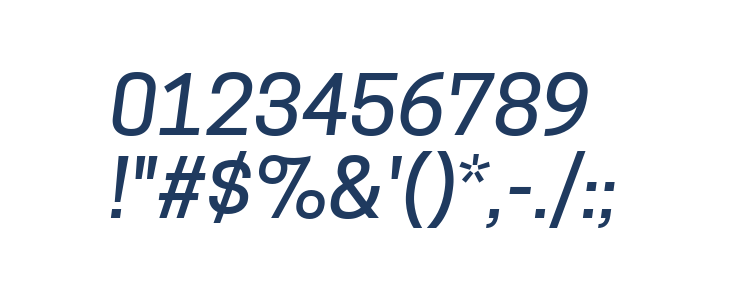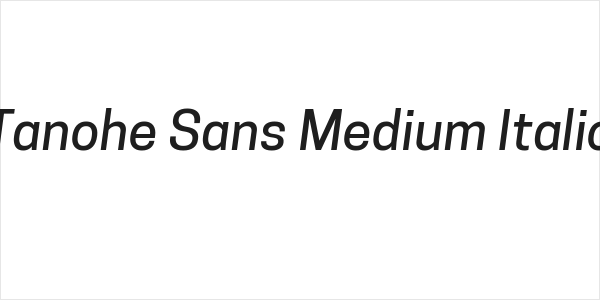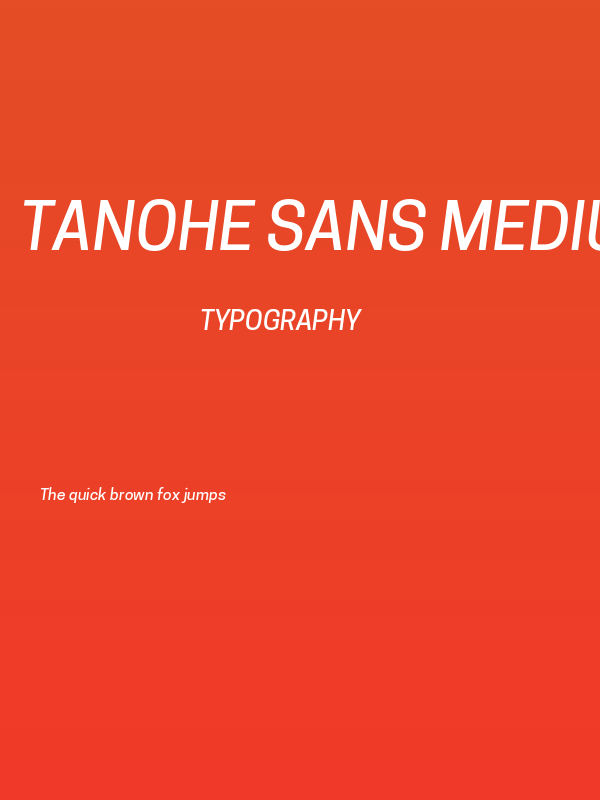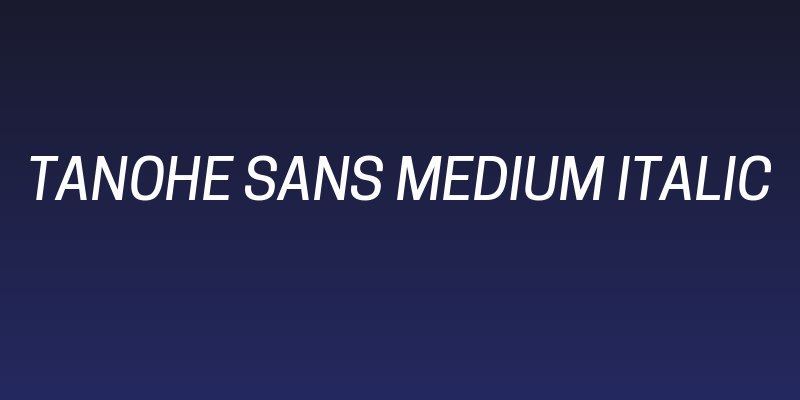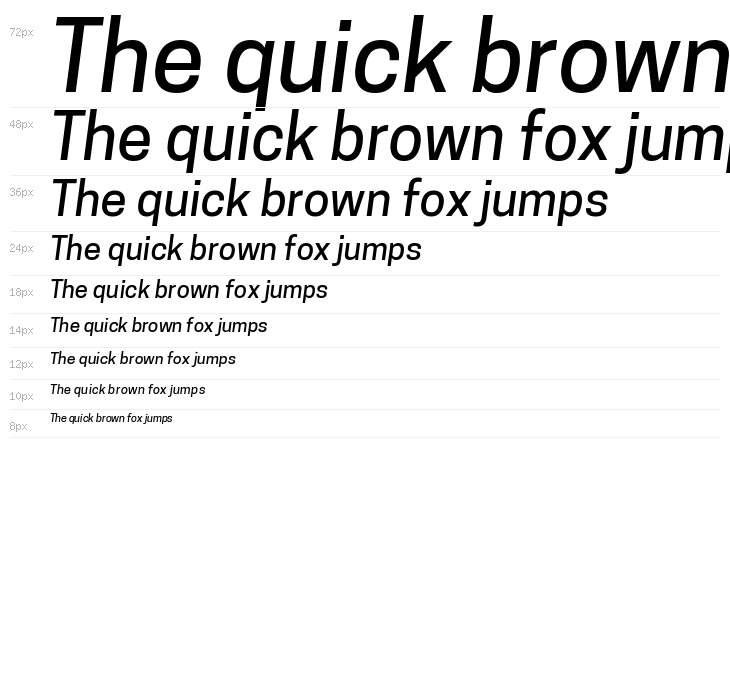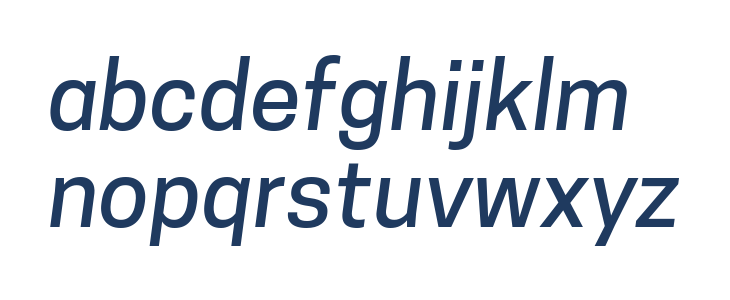
Tanohe Sans Medium Italic Font
Tanohe Sans Medium Italic Description
This font features a clean and modern sans-serif design with a medium weight and italic style. The characters are slightly slanted, giving a dynamic and contemporary feel. The uppercase and lowercase letters are well-proportioned, maintaining readability across various sizes. The numerals are clear and distinct, making them suitable for both text and numerical data. Special characters are included, providing versatility for different types of content. The overall appearance is sleek and professional, making it ideal for modern design projects.
Proposed ProjectsIdeal for branding, advertising, digital content, and editorial design where a modern and professional look is desired.